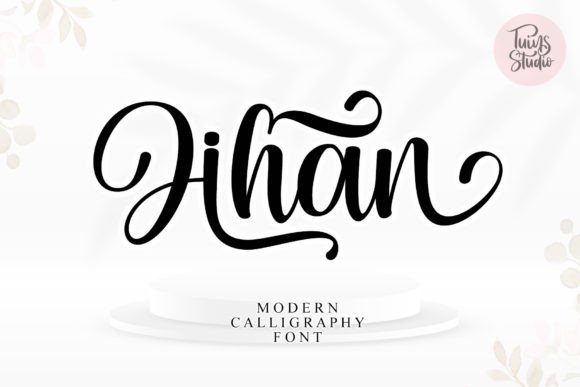
Journey into the realm of pure elegance and timeless beauty with Jihan Font, the enchanting calligraphy typeface that will weave a spell of romance and grace into your creative endeavors. Created by the talented Annisa Afni, Jihan is not merely a font; it's an expression of love, a symphony of flowing lines and delicate curves that dance across the baseline, capturing the essence of heartfelt emotions.
Jihan's graceful strokes are reminiscent of a handwritten love letter, evoking a sense of intimacy and personal connection. Each character is meticulously crafted to convey a profound message of affection, making it the perfect choice for expressing your deepest feelings in a visually stunning manner.
With its captivating charm, Jihan Font transcends the boundaries of ordinary typography, becoming an integral part of your artistic vision. Whether you're designing logos that exude sophistication, creating wedding invitations that radiate elegance, or crafting headings that demand attention, Jihan will elevate your designs to new heights of beauty and allure.
Unleash your creativity and explore the boundless possibilities that await with Jihan Font. Its versatility extends beyond the realm of love quotes, allowing you to craft stunning t-shirts that make a statement, letterheads that command respect, signage that attracts attention, labels that intrigue, posters that inspire, and badges that leave a lasting impression.
Jihan Font's PUA encoding unveils a world of hidden treasures, granting you effortless access to a vast collection of glyphs and swashes. These embellishments are the jewels that adorn the crown of this exquisite font, adding an extra layer of sophistication and charm to your designs.
Embrace Jihan Font today, and embark on a creative journey that will ignite your passion and captivate your audience. Let its romantic allure flow through your veins, transforming your designs into masterpieces that resonate with beauty, grace, and heartfelt emotions.